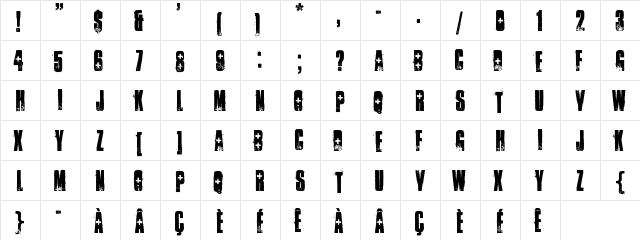
ambulance shotgun Regular
Design Context for ambulance shotgun Typeface
ambulance shotgun is a composed and adaptable typeface that performs quietly and consistently across a wide range of design contexts.